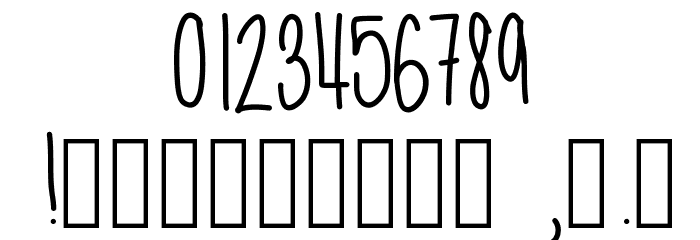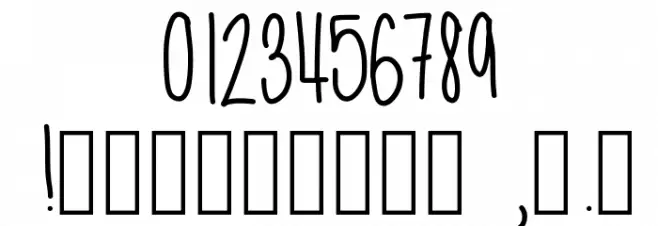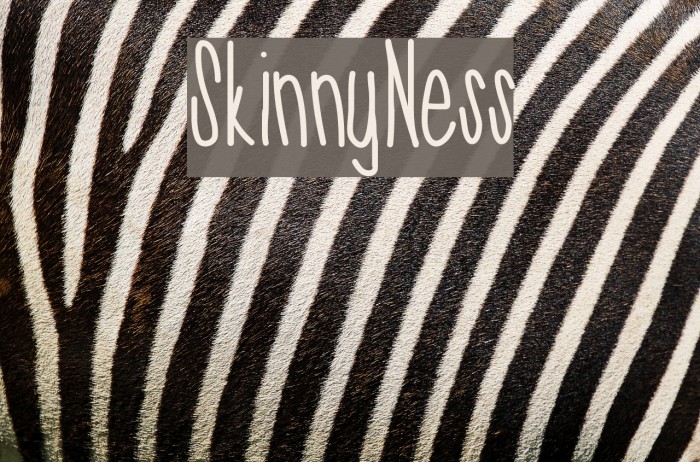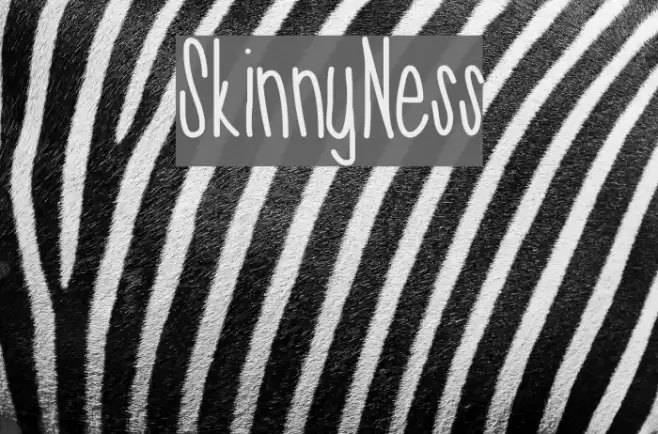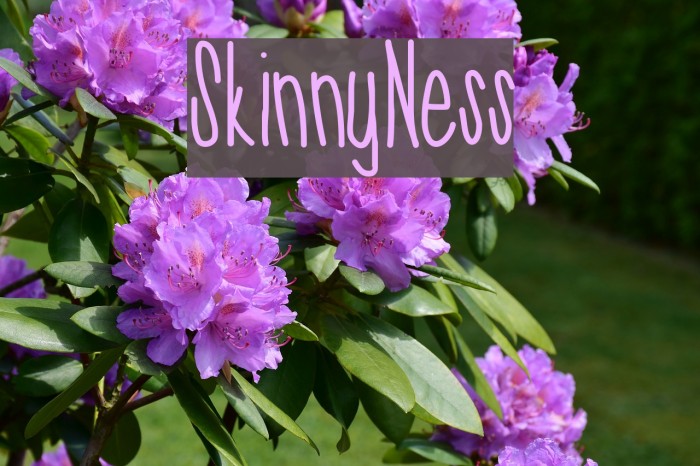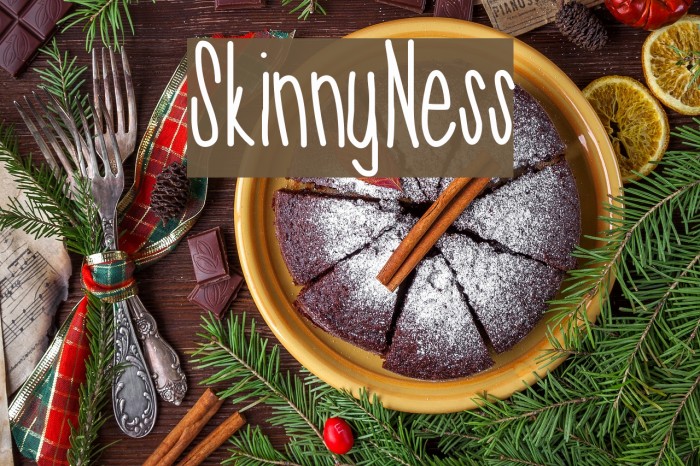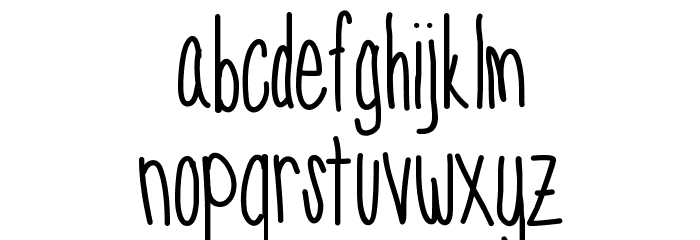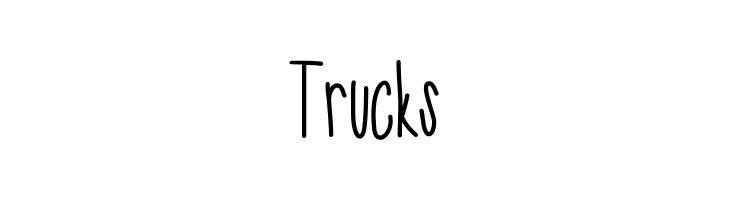
SkinnyNess Font
| Gesamtstil | Casual |
| Anwendungsfall | Headlines, Informal text, Creative projects |
| Vorgeschlagene Projekte | Ideal for greeting cards, children's books, casual branding, and social media graphics. |